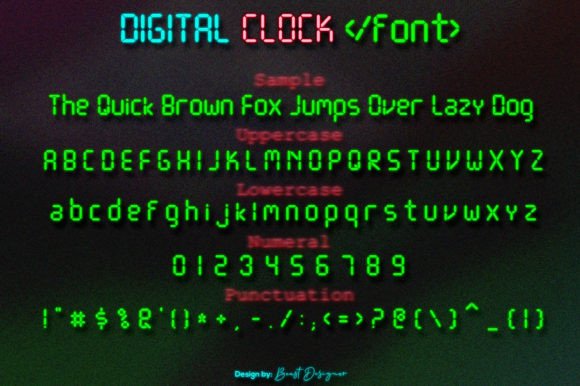
Introduction to Digital Clock Font
Digital clock font is a typeface designed specifically for use in digital alarm clocks and other timekeeping devices.
It is characterized by clear, legible numerals and symbols, and a modern, minimalistic design that is easy to read at a quick glance .
Key Features of Digital Clock Font